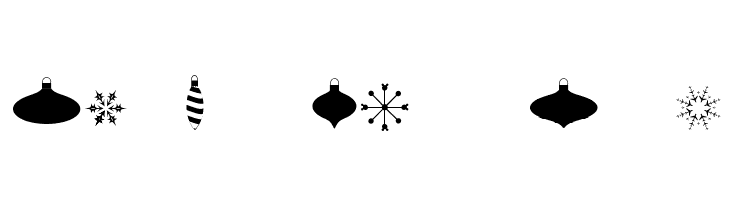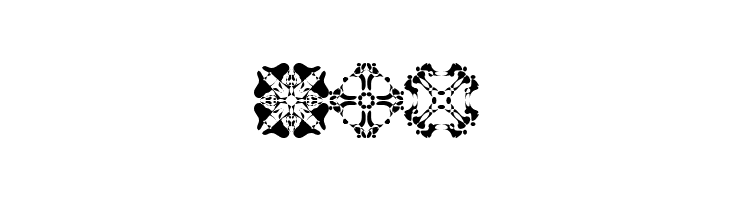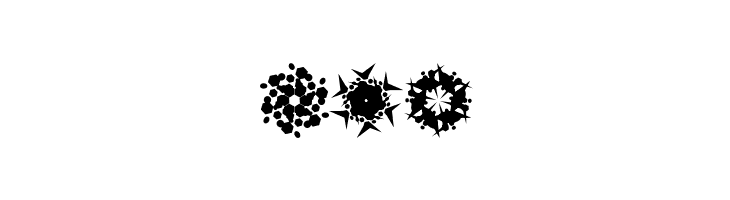
( Font by kingthingsfonts.co.uk )
A festive, decorative font with snowflake and star motifs, perfect for holiday themes.
( Fonts by www.aenigmafonts.com )
Intricate snowflake dingbat set with detailed, decorative patterns.
( Fonts by Rick Mueller )
A festive, holiday-themed font with bold letters decorated with holly and snowflakes.
Highly decorative snowflake-themed display font.
( Fonts by Steve Ferrera )
Festive dingbat font with Christmas ornaments, snowflakes, and mouse motifs.